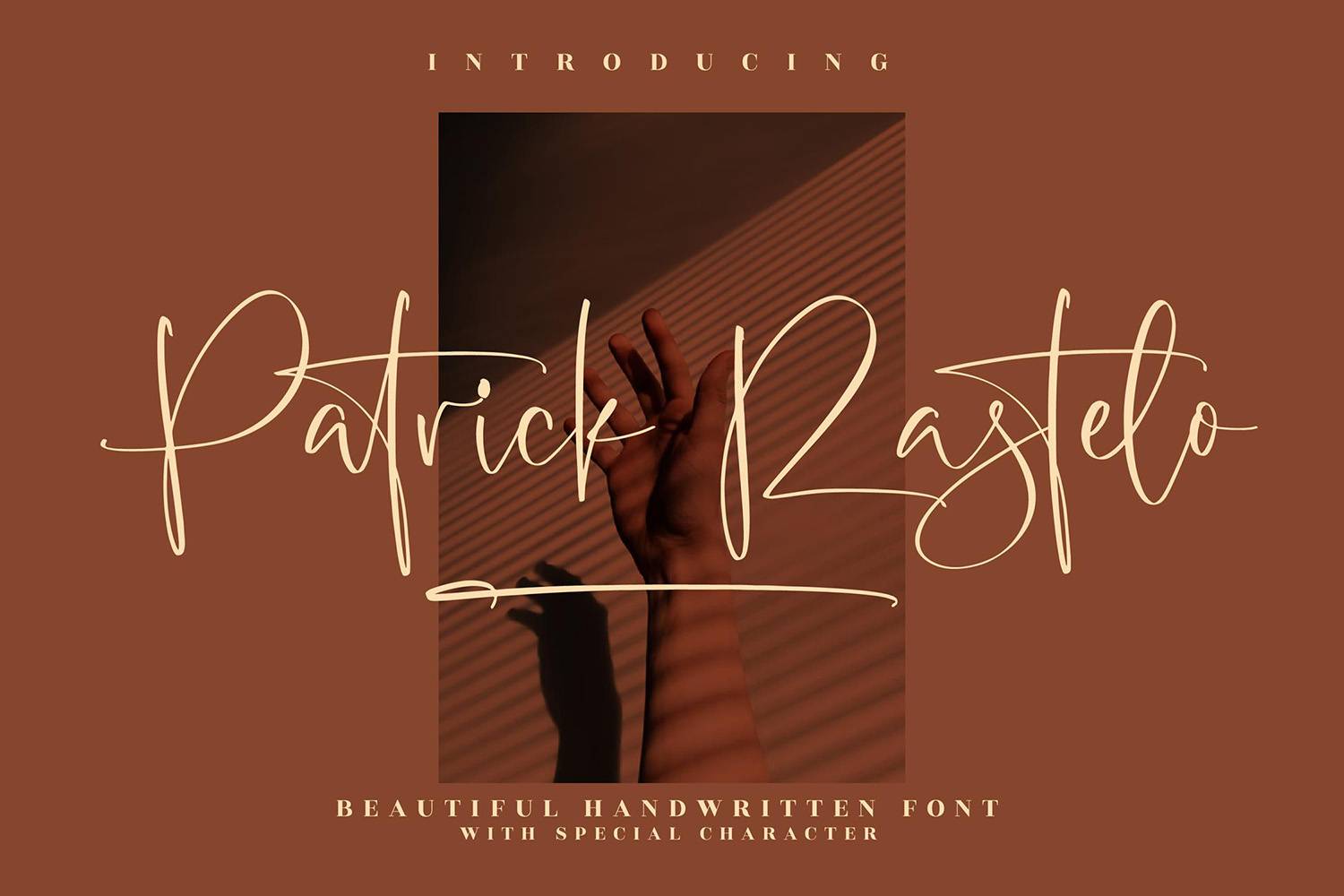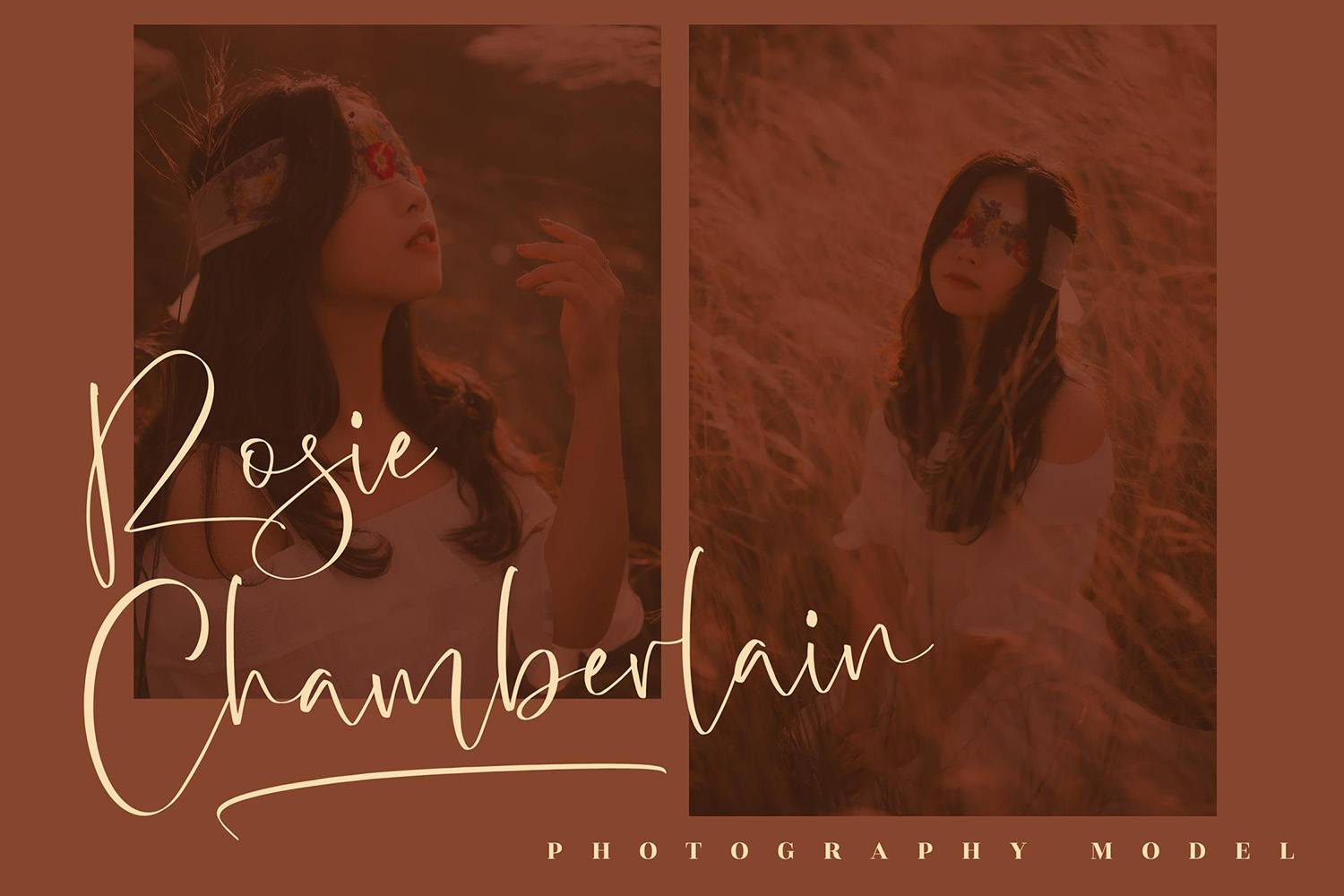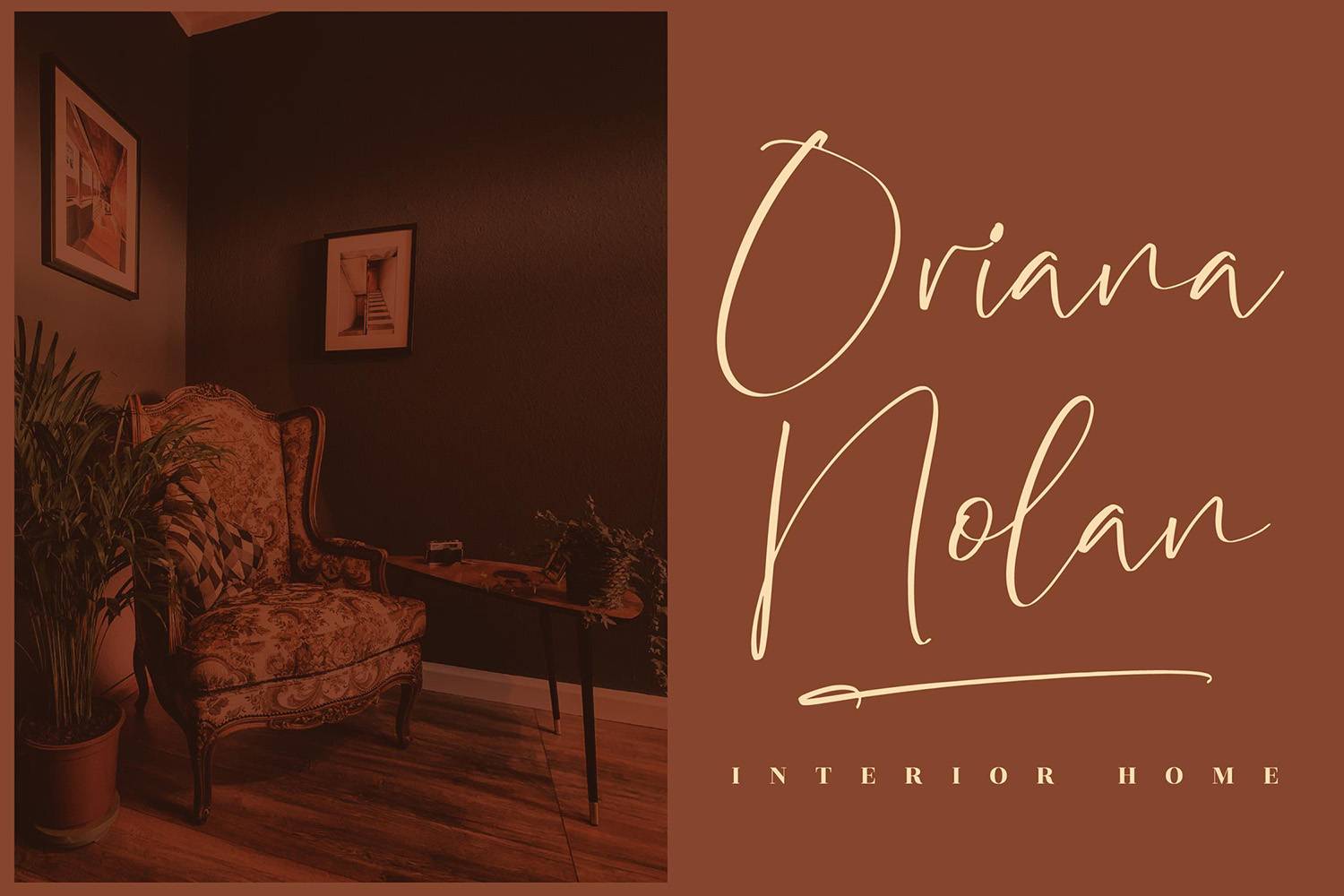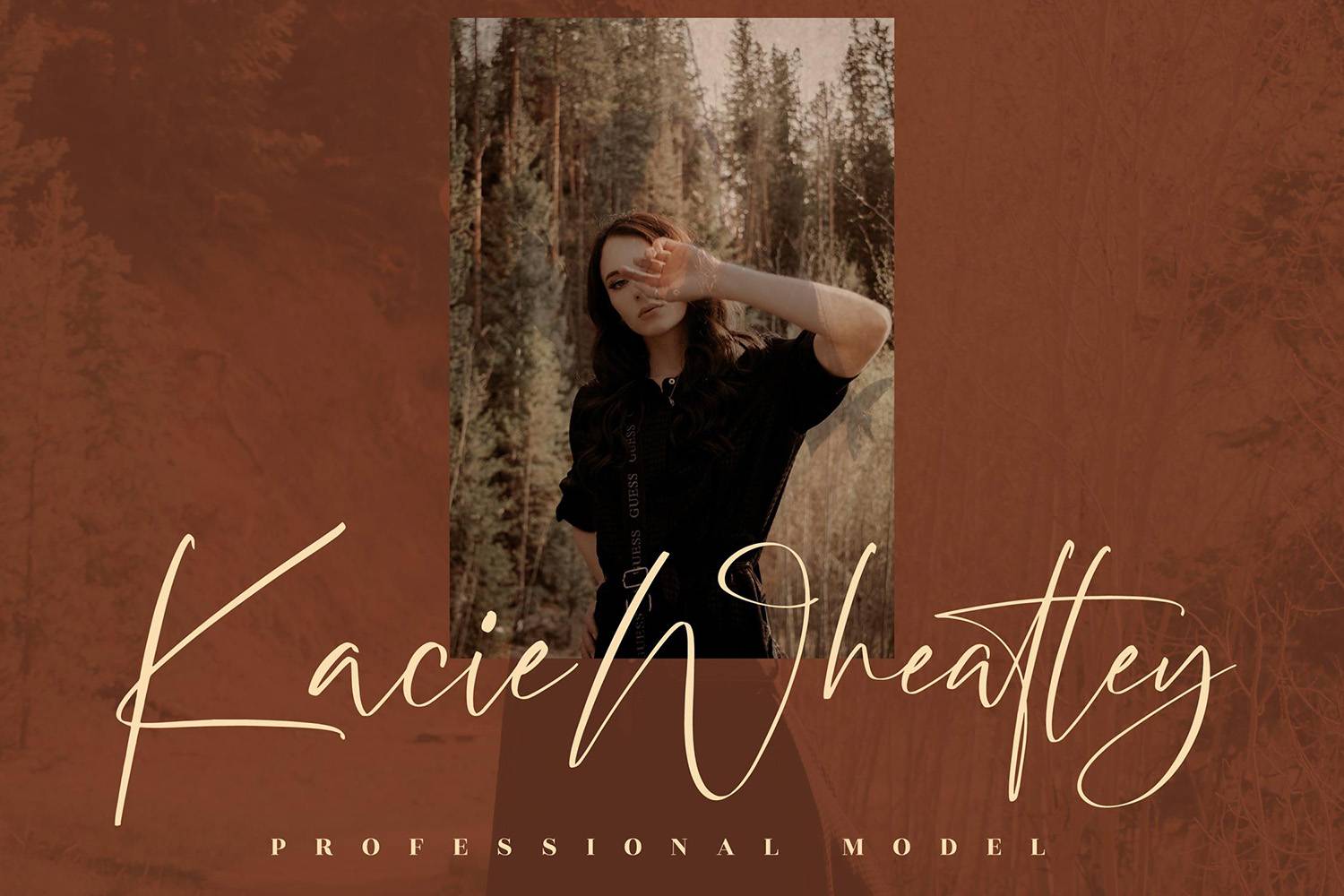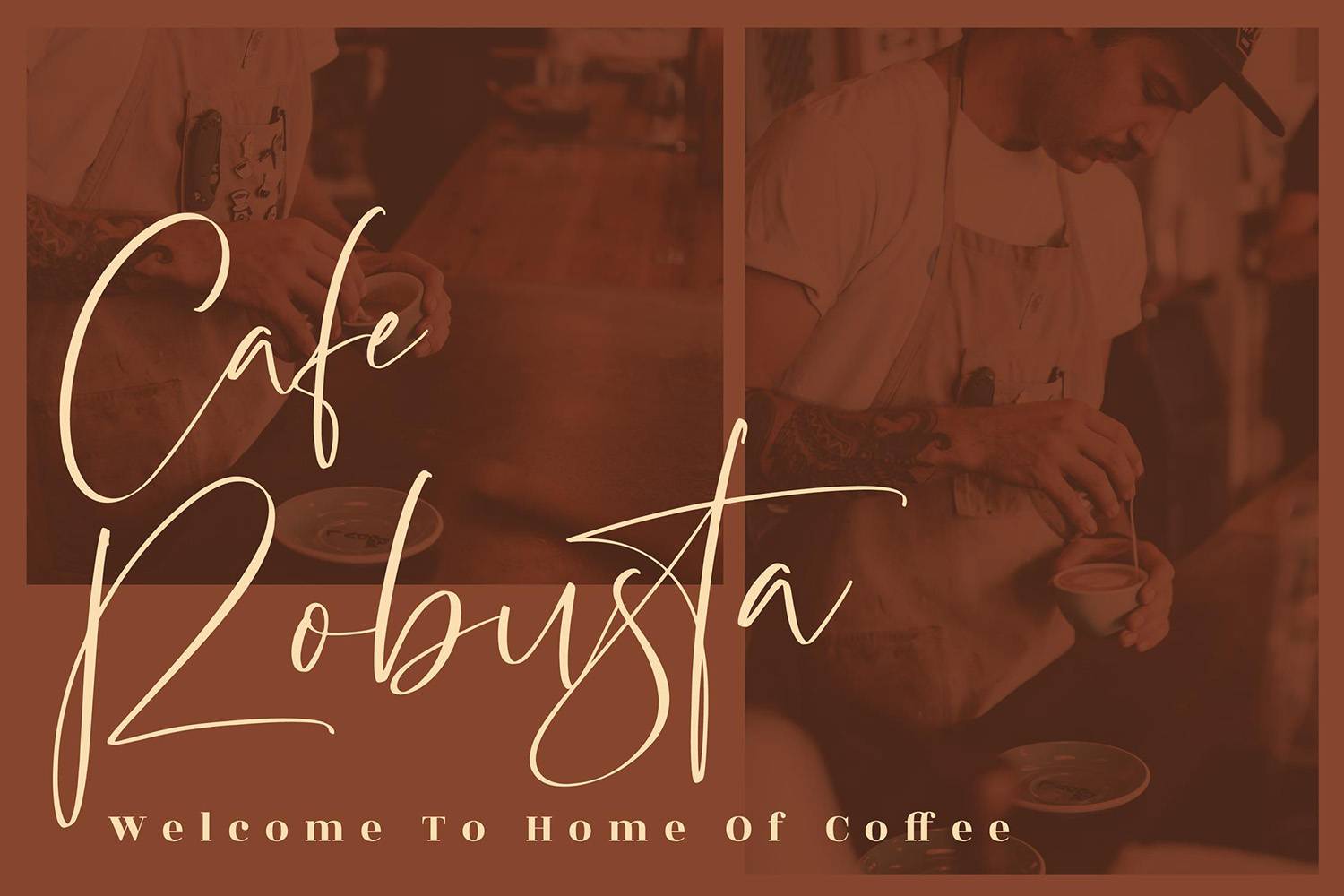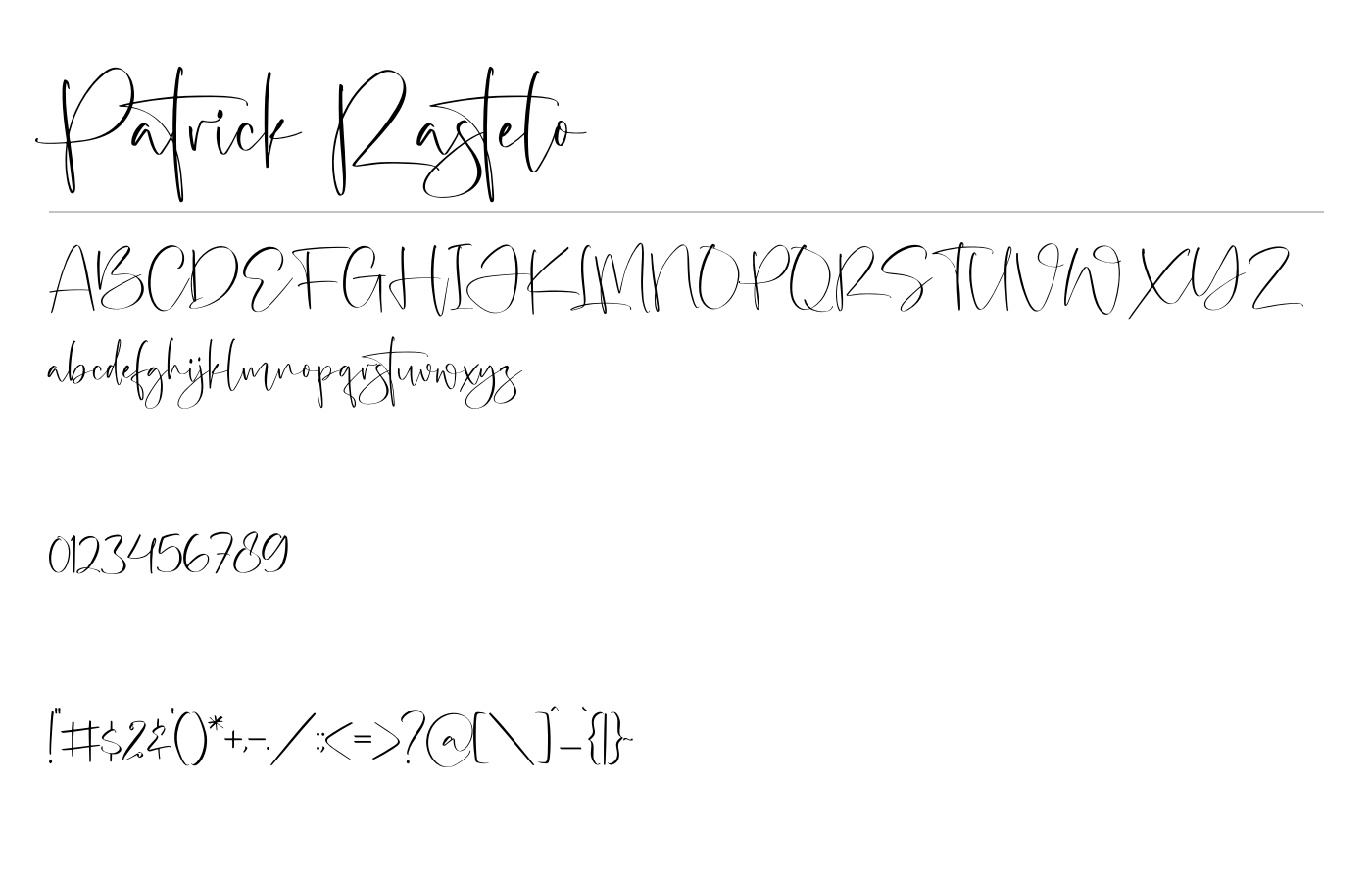
Patrick Rastelo is a delicate, hand-drawn script font featuring tall, slender letterforms with varied stroke widths that create a graceful and whimsical feel. Its airy, flowing lines and playful yet elegant style make it well-suited for creative branding, invitations, and designs that seek a personal, artistic touch. This font shines in projects that want to convey sophistication with a relaxed, charming personality.
Patrick Rastelo Font
About Patrick Rastelo Font